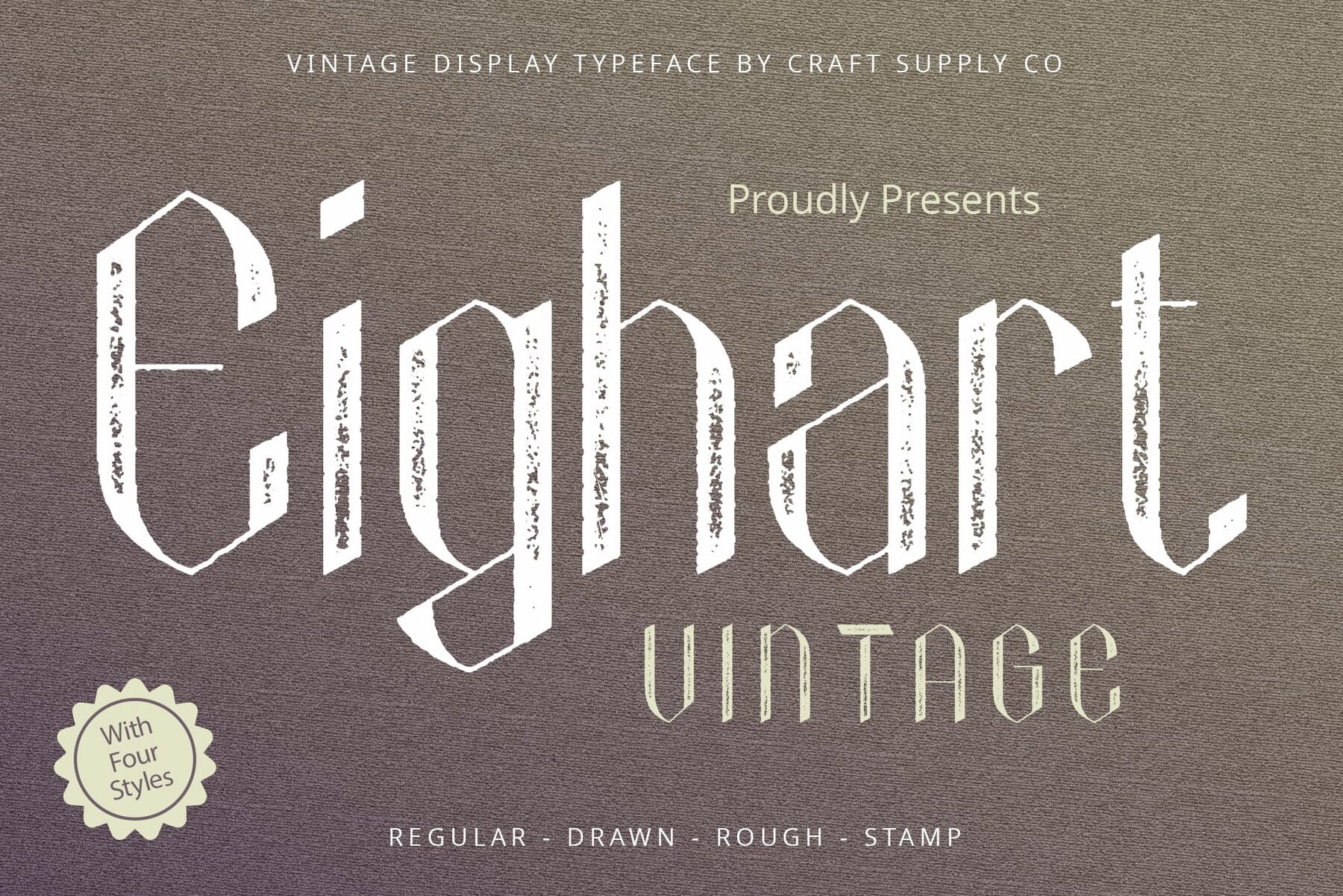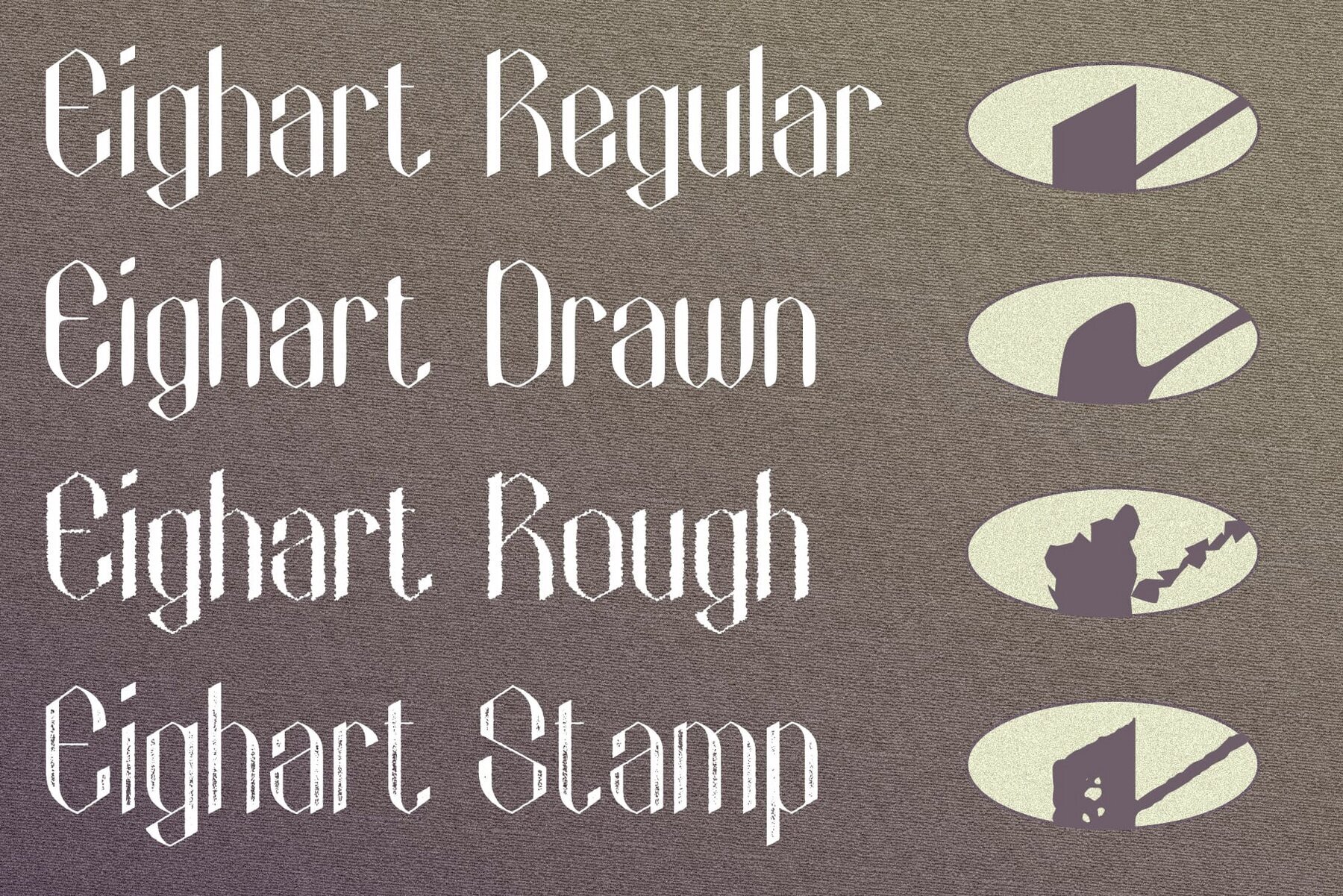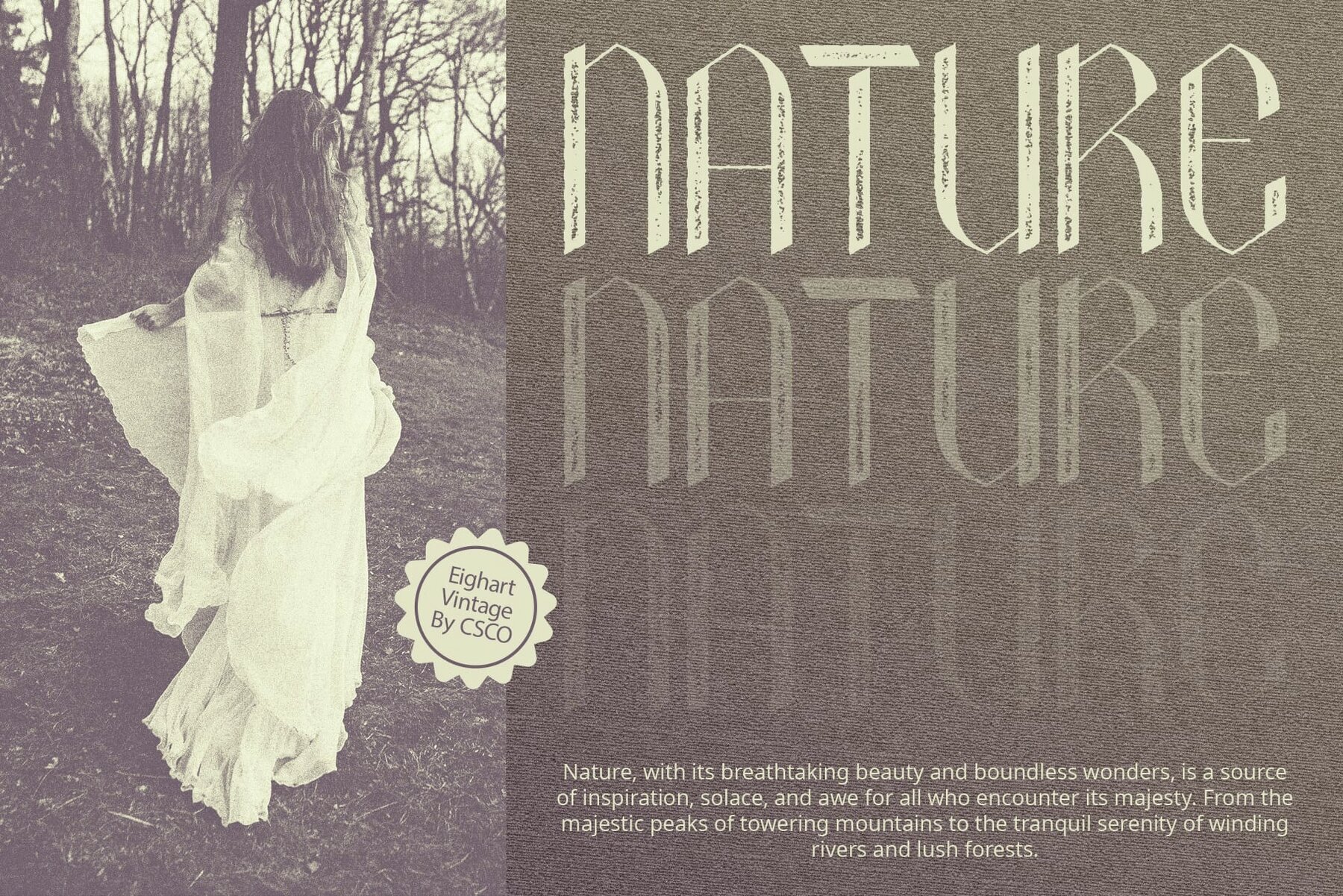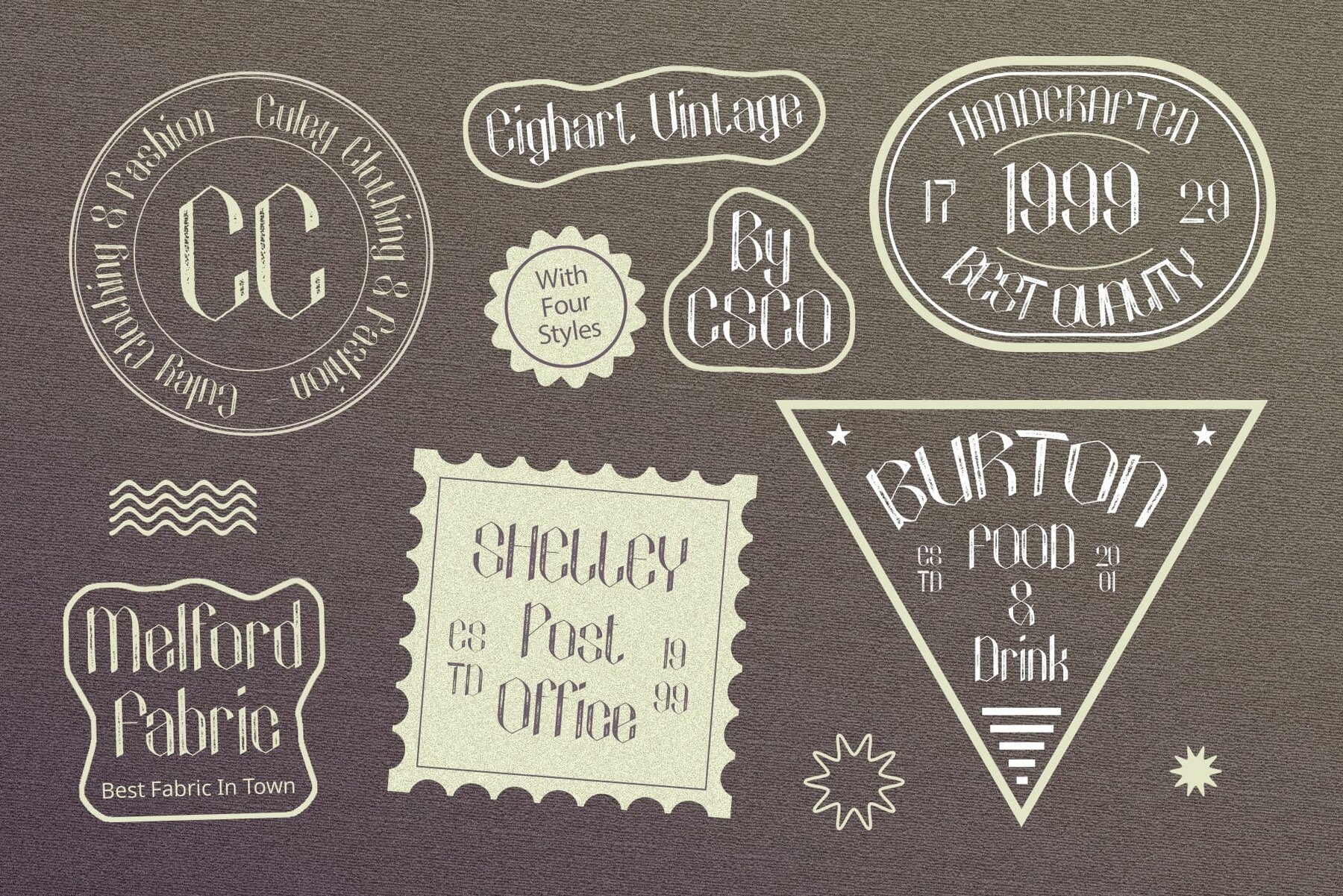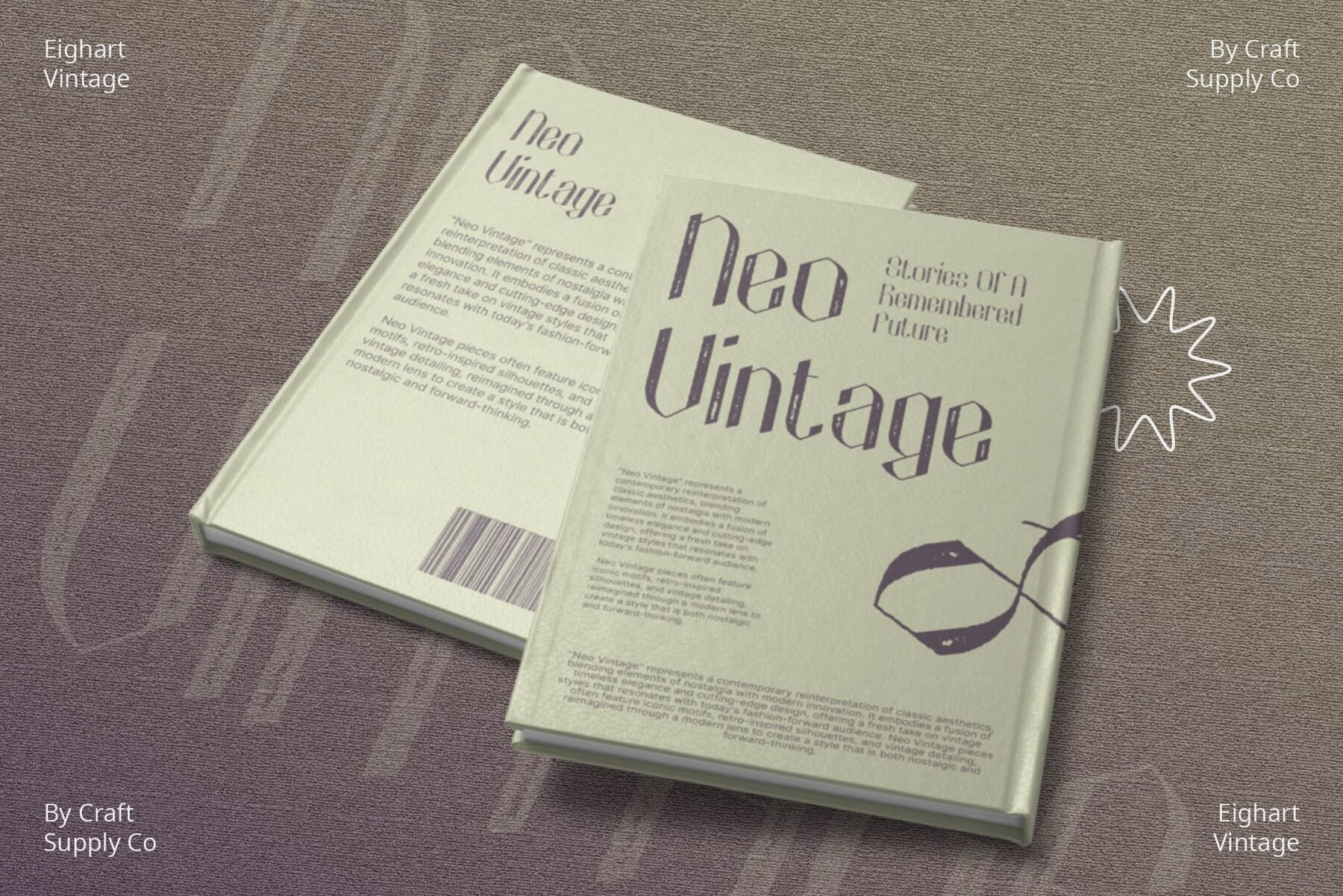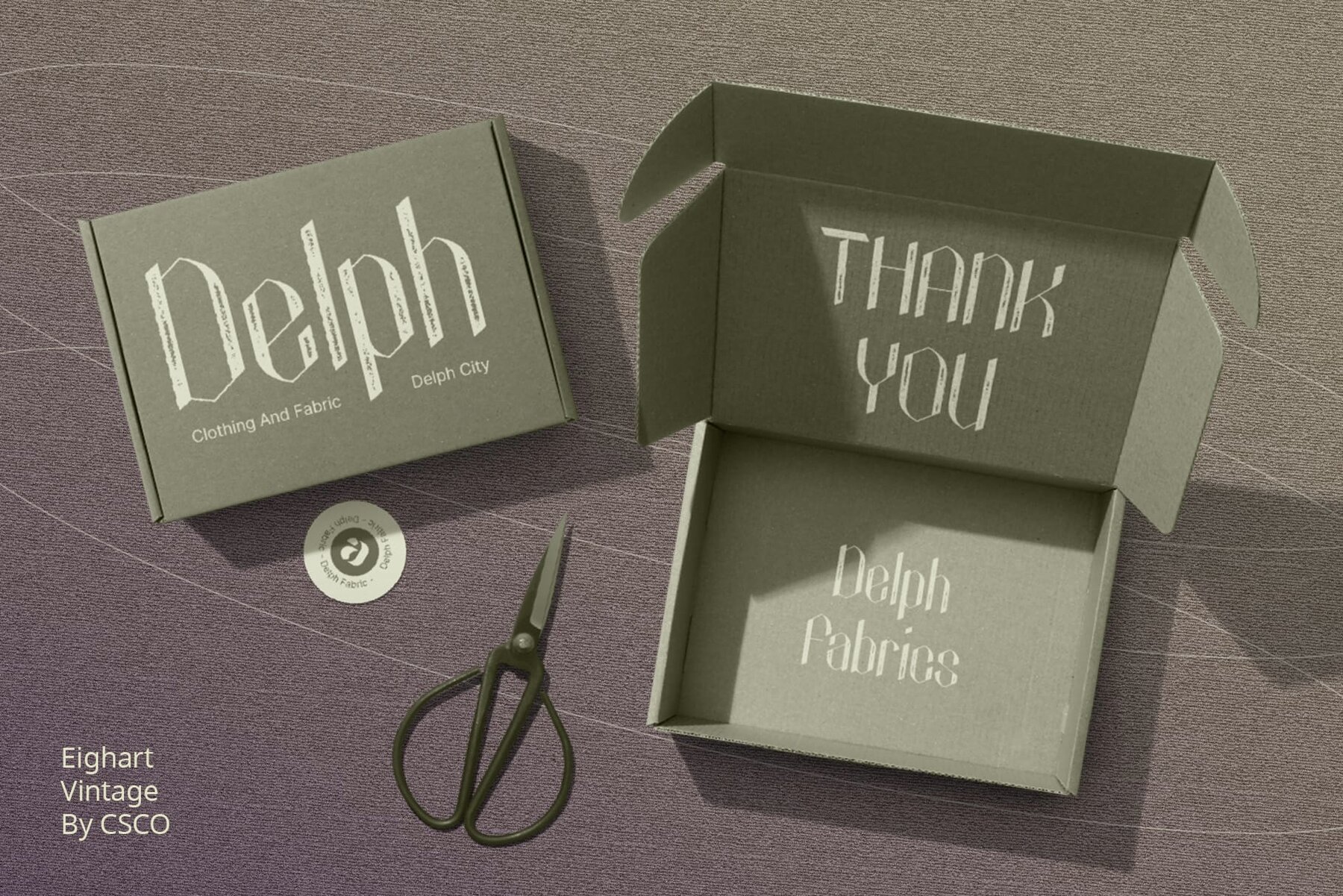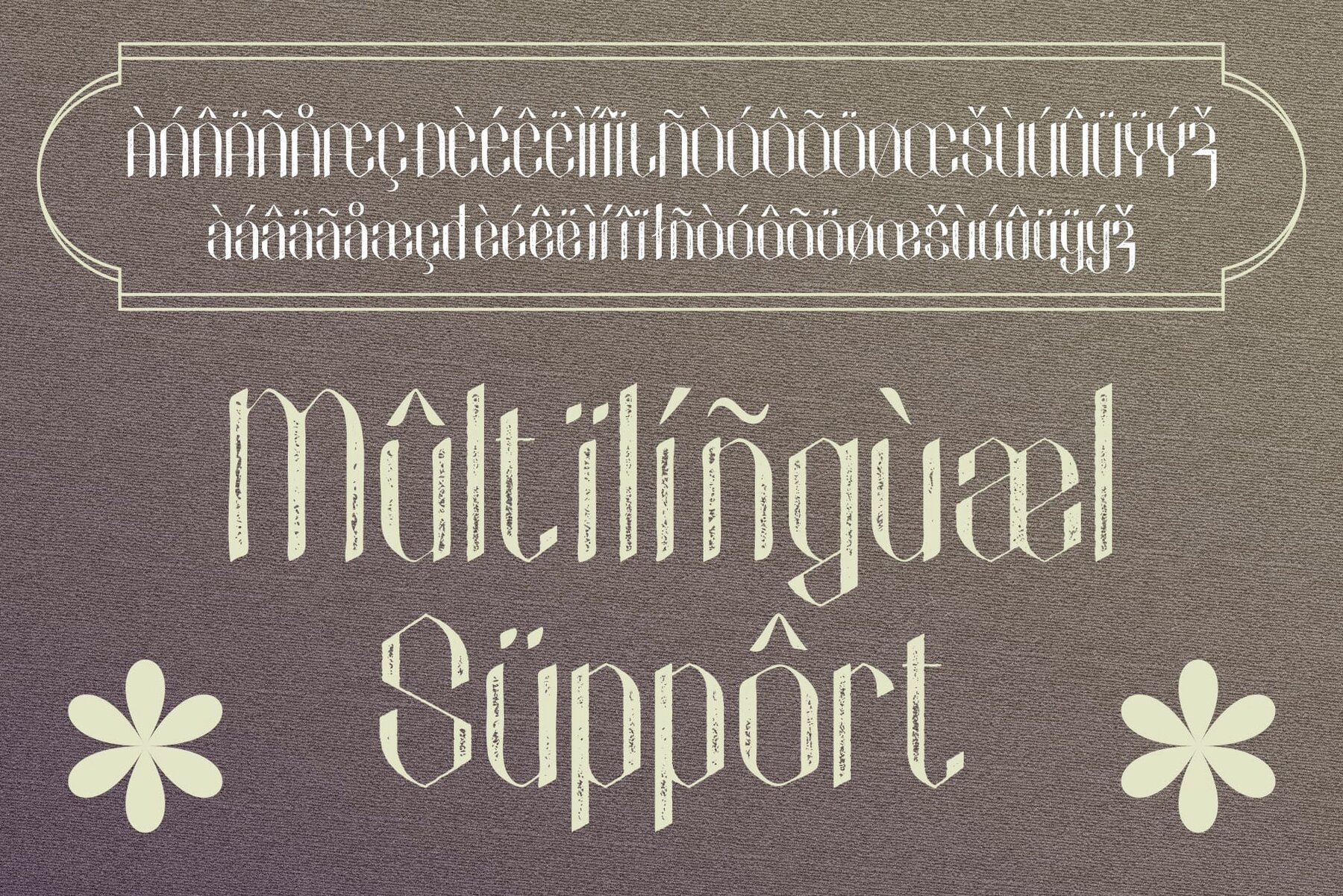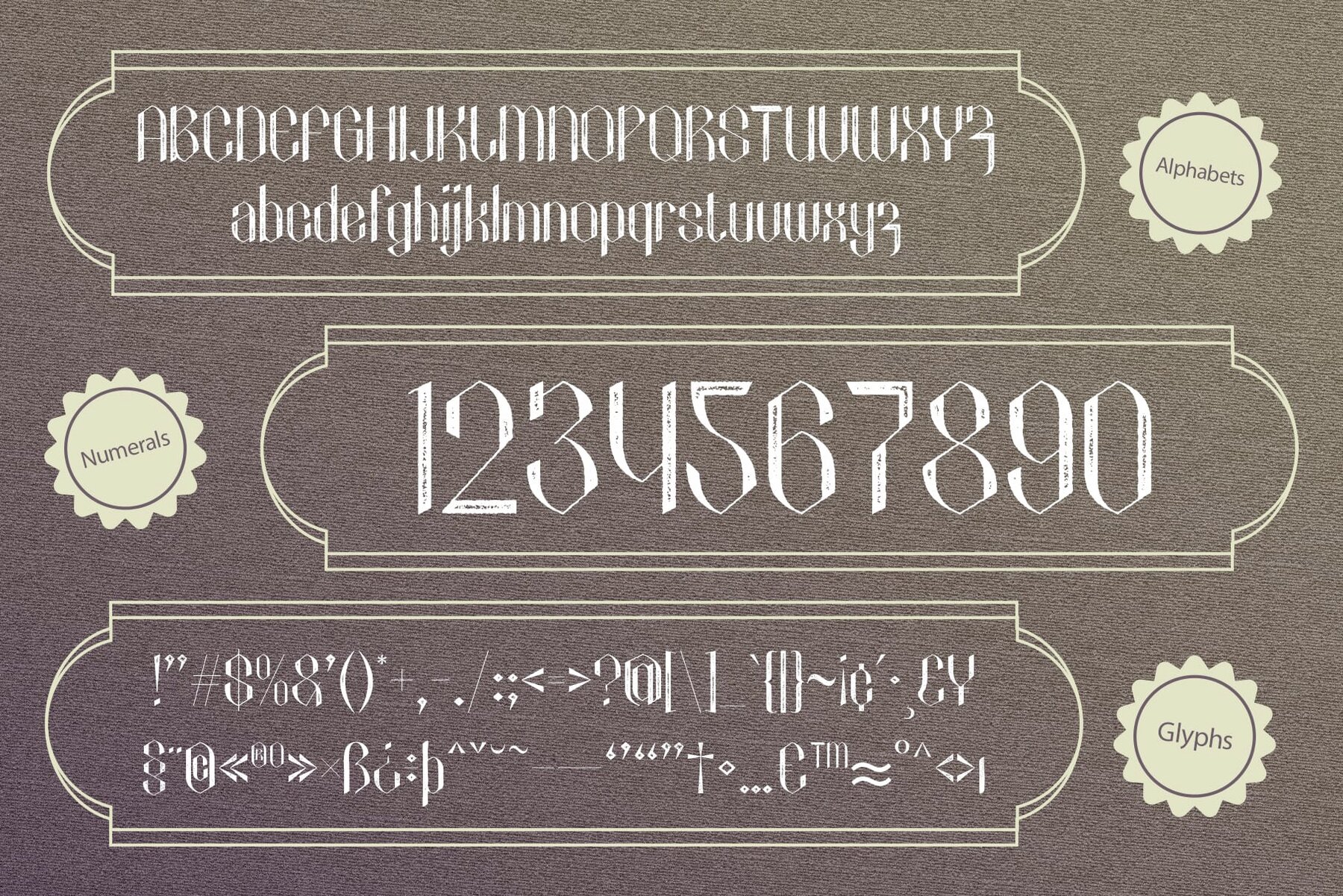
Eighart Vintage Font
Eighart Vintage by Craft Supply Co. is a font that exudes vintage charm with a distinctive edge. Its unique design elements make it a standout choice for those looking to add a touch of nostalgia and flair to their projects. Eighart Vintage features high contrast and a distinctive shape, ensuring maximum visibility and impact in any display setting. Its design effortlessly captures attention and stands out in any crowd. This font includes a rough stamp drawn effect, adding an authentic vintage touch. Each character delivers a sense of nostalgia and craftsmanship, reminiscent of past eras. Combining vintage appeal with a modern twist, Eighart Vintage offers high contrast and unique shapes that bring a contemporary flair to retro aesthetics. It's perfect for a range of design projects. Eighart Vintage is versatile despite its vintage-inspired look. Whether you're working on branding, posters, packaging, or social media graphics, this font adds character and charm to any design. With Eighart Vintage, you can blend vintage charm with contemporary style. Its high contrast, unique shape, and rough stamp drawn effect make it ideal for designers aiming to evoke nostalgia and fringe a touch of retro flair to their creations. Dive into the past and enhance your designs with Eighart Vintage's timeless appeal. No specialized software is needed to utilize this typeface.Eighart Vintage: Retro Charm with Unique Flair
High Contrast and Unique Shape
Rough Stamp Drawn Effect
Vintage Appeal with Modern Twist
Versatile Application
Embrace Retro Chic